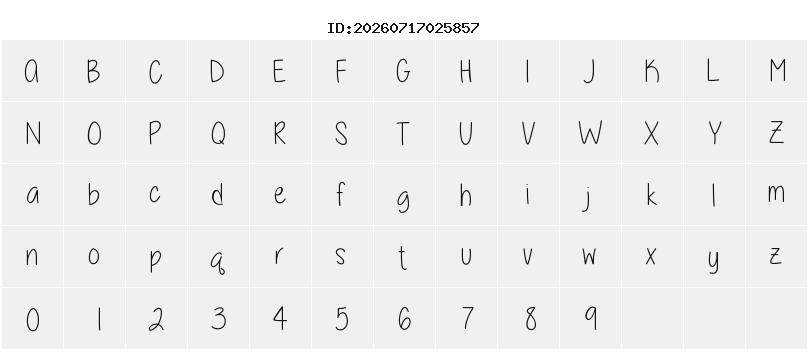
A little sunshine Preview
• Font Name: A little sunshine
• Full Font Name: A little sunshine
About A little sunshine.ttf
A little sunshine.ttf is a modern, elegant sans-serif font designed for ultimate readability and visual harmony. Perfect for branding, headlines, web design, and print materials.